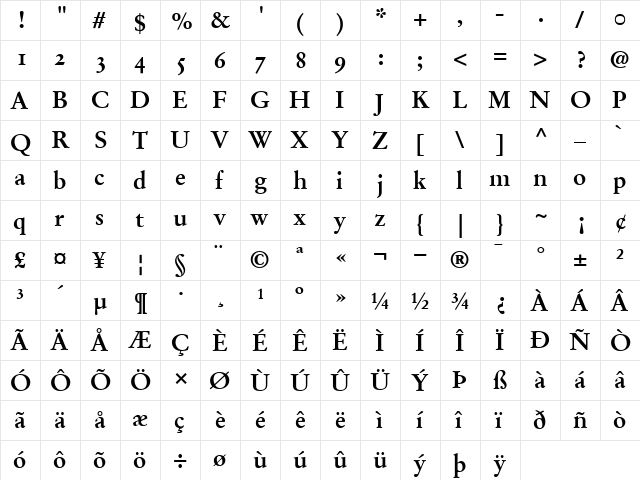
StempelGaramondOldstyleFigures Bold
Design Context for StempelGaramondOldstyleFigures Typeface
StempelGaramondOldstyleFigures carries the refined structure of traditional serif typography, with bracketed terminals and considered proportions that communicate credibility and craft. Its bold stroke weight gives it real presence on the page.
Pro Tip: Set StempelGaramondOldstyleFigures with slightly loose tracking in headlines to let each letterform's detail read clearly at display sizes.